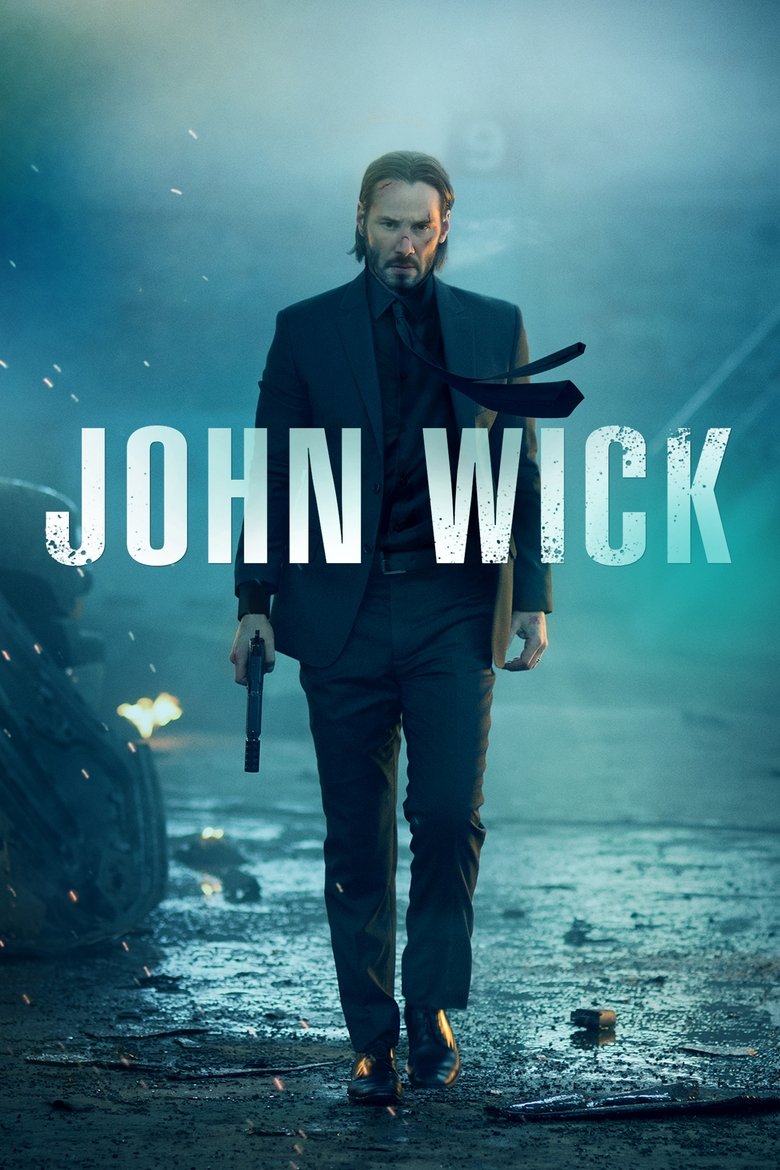
John Wick Font Generator
About the John Wick font
John Wick uses a tall, clean condensed sans. Bebas Neue recreates its sleek, lethal minimalism.
What font is used in the John Wick logo?+
The original John Wick logo uses custom lettering. This generator recreates the look with Bebas Neue — a free, open-license font you can style and download.